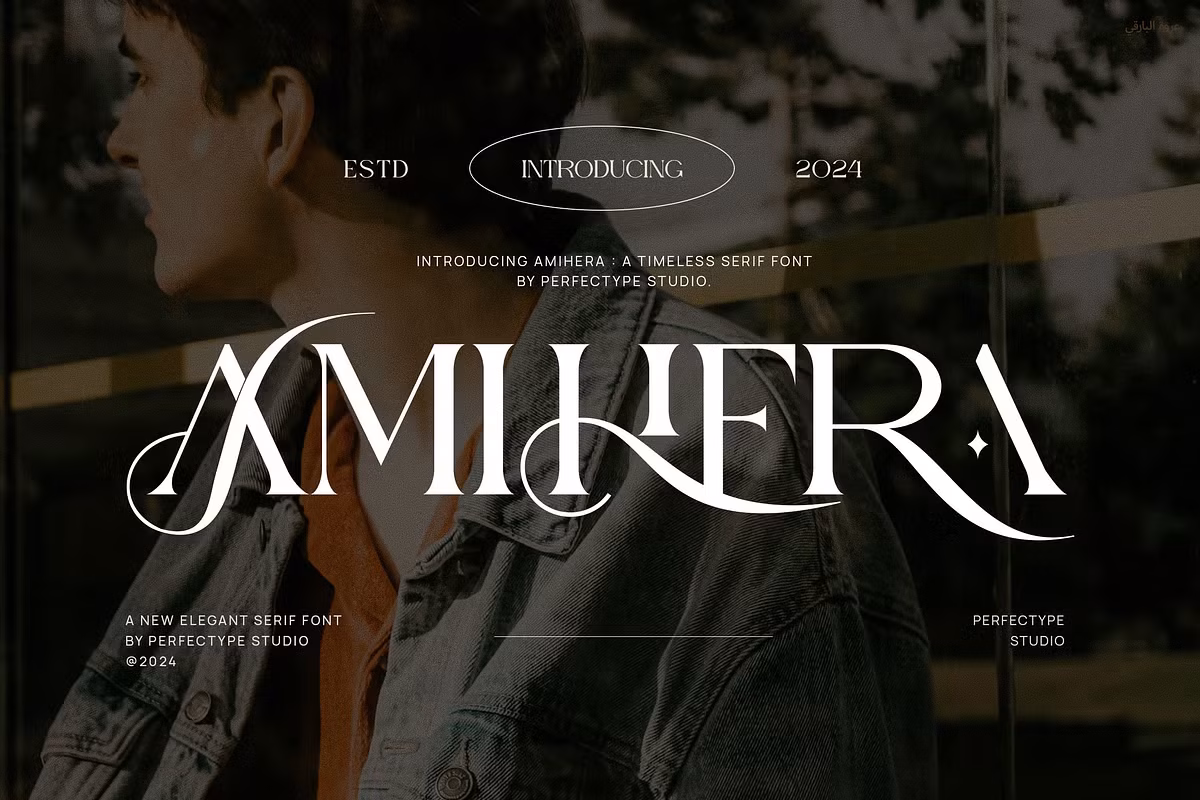
Amihera Serif Font Typeface Free Download
You must purchase this font for commercial use. However, you can download Amihera Serif Font Typeface Free Download for testing purposes. Amihera is a refined serif typeface designed to bring elegance and sophistication to your creative projects. With its graceful curves, high contrast strokes, and timeless appeal, Amihera is perfect for editorial layouts, wedding invitations, luxury branding, fashion magazines, and upscale packaging. This font delivers a harmonious balance between classic serif tradition and modern design sensibilities, making it a versatile choice for both print and digital media. Whether you're working on a high-end branding project or a beautifully designed website, Amihera Serif Font Typeface Free Download provides the style and flexibility needed to make your work stand out. It includes a range of weights and elegant alternates, allowing for full typographic expression. Don’t forget to follow proper licensing if used in any commercial application. Download Amihera Serif Font Typeface Free Download today and see how it can elevate your design aesthetics.